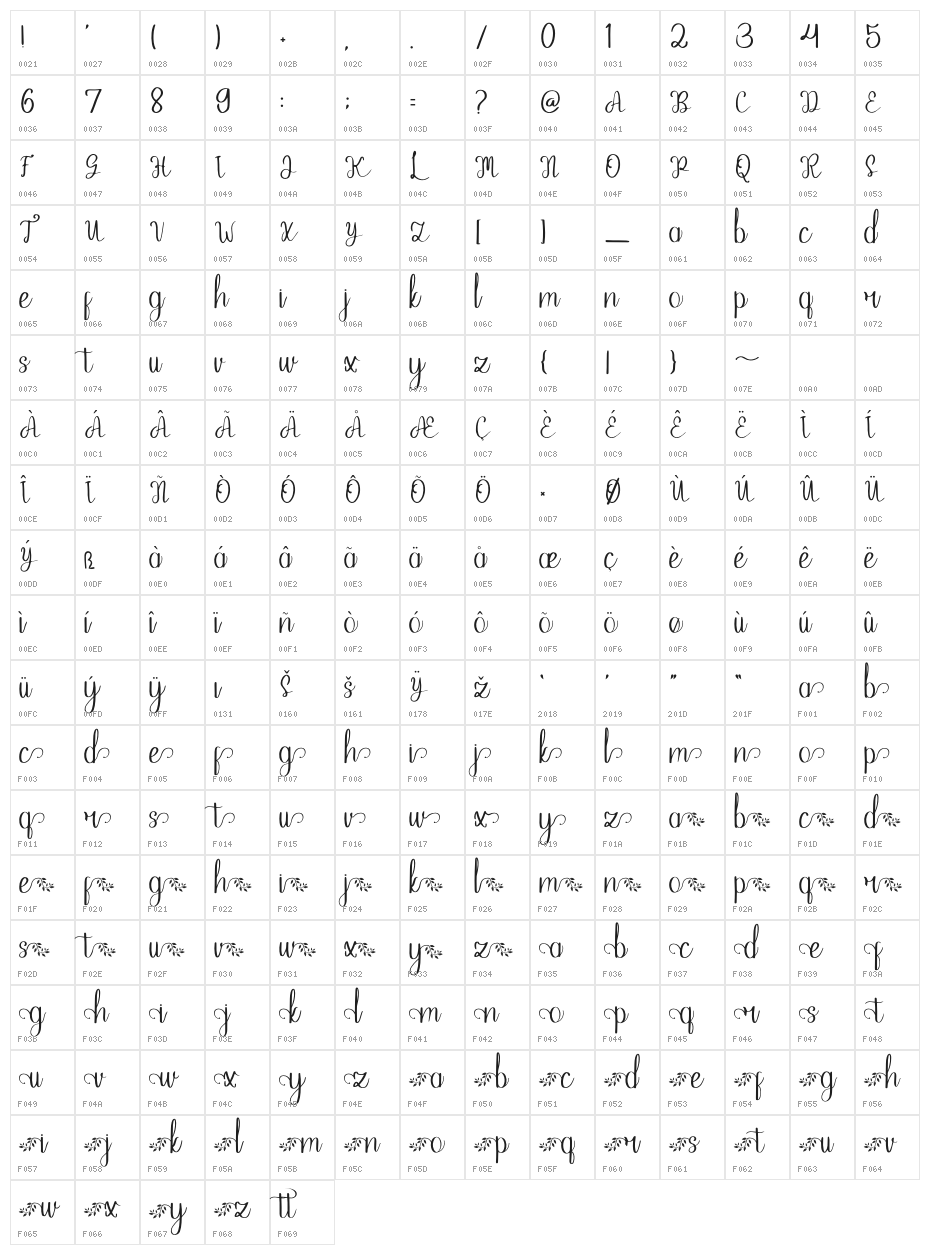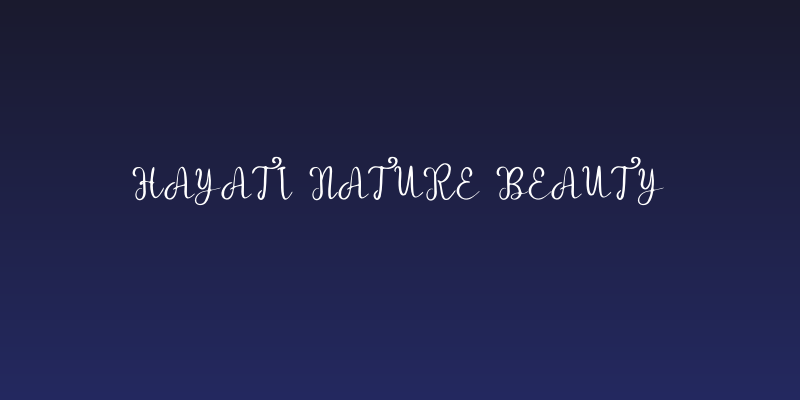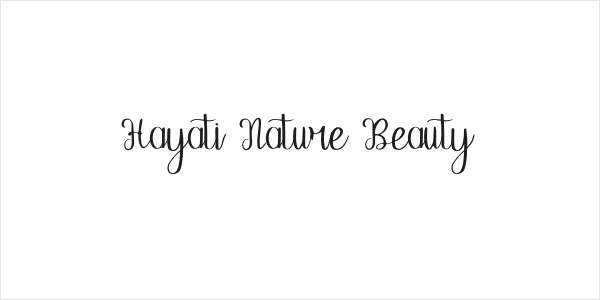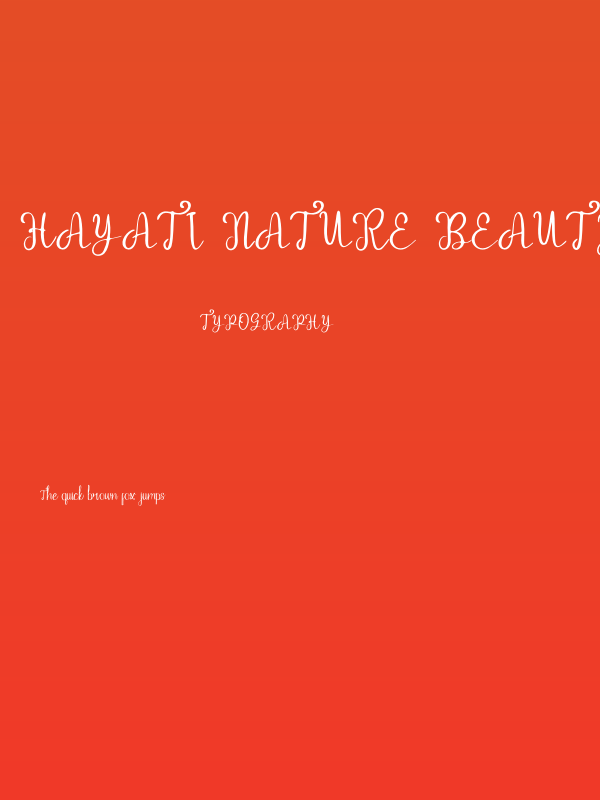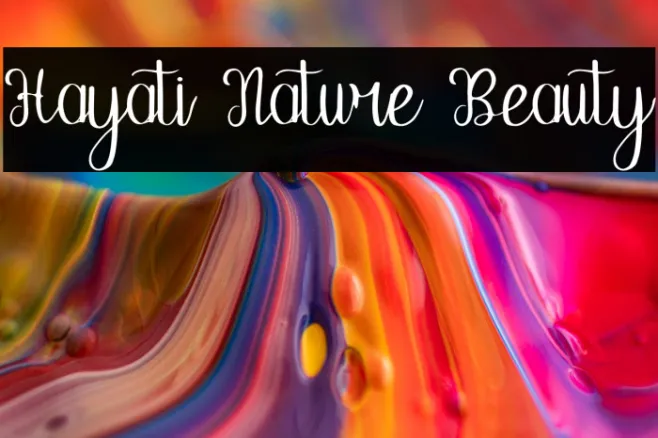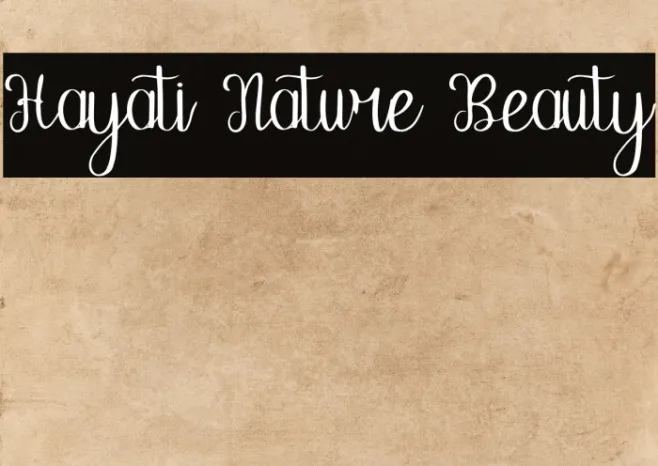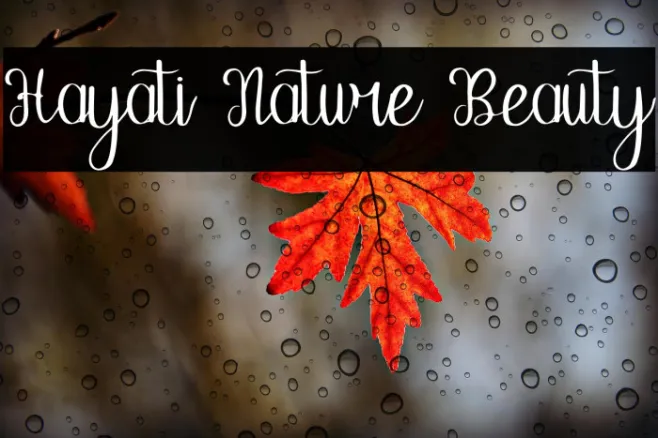
Hayati Nature Beauty Font
Hayati Nature Beauty Description
This font features a flowing, cursive style with elegant loops and swirls, giving it a handwritten appearance. The uppercase letters are slightly more ornate, with additional flourishes, while the lowercase letters maintain a consistent, smooth flow. The numerals are designed to match the script style, with a slight slant and rounded edges. The overall look is both sophisticated and approachable, making it suitable for a variety of creative projects. The characters are well-spaced, ensuring readability while maintaining the decorative nature of the script.